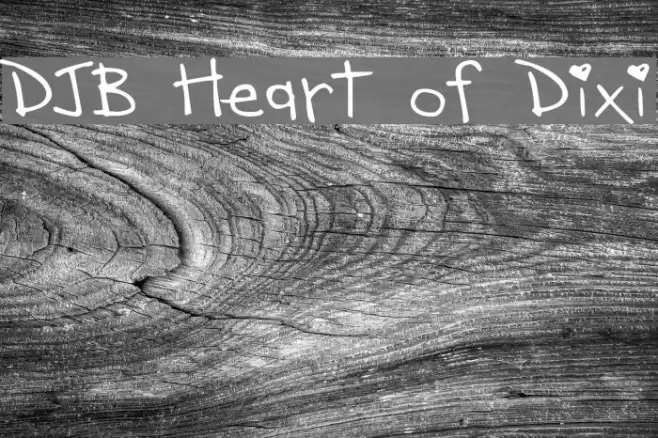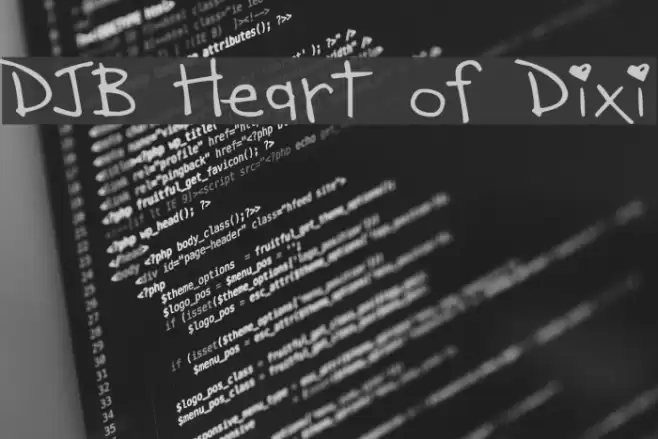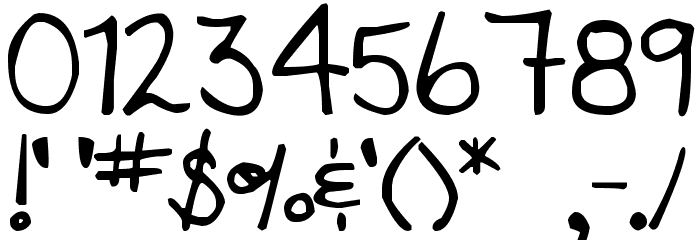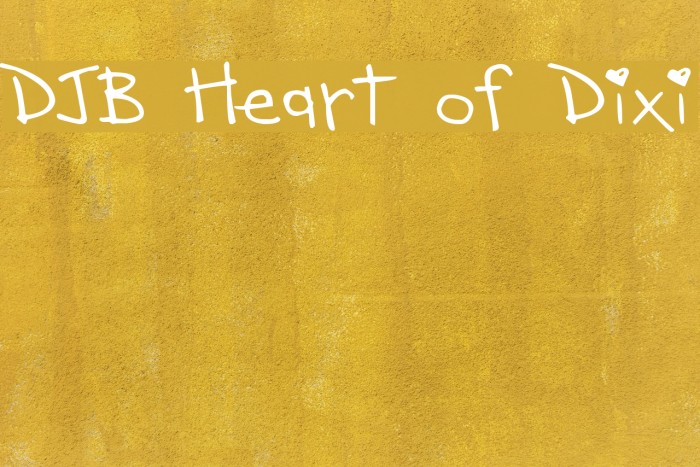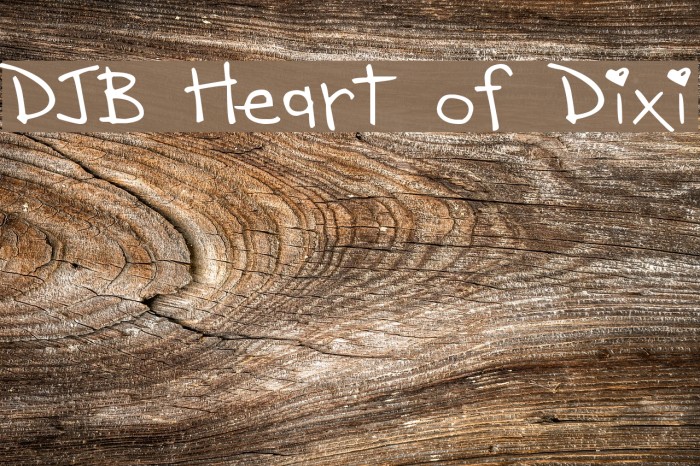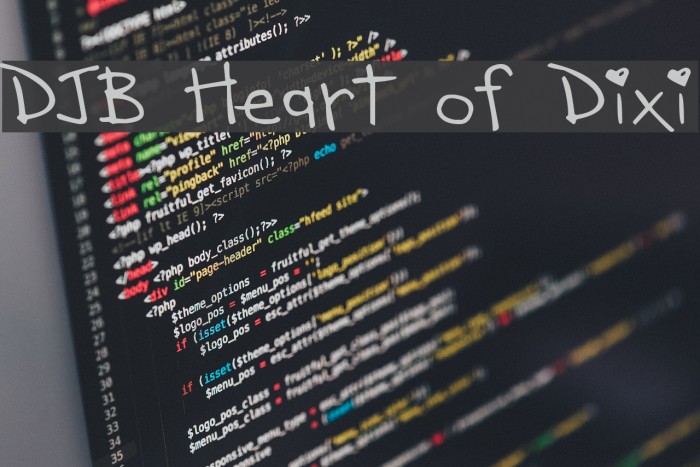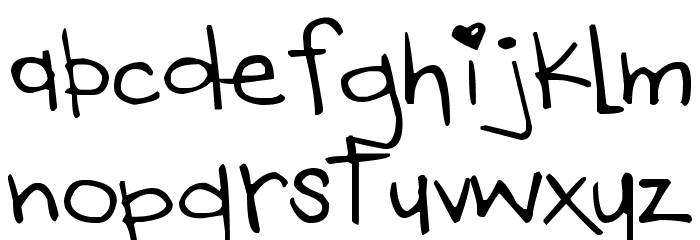
DJB Heart of Dixi Font
This playful and whimsical font features a handwritten style that exudes a casual and friendly vibe. The letters are slightly irregular, adding a personal touch that mimics natural handwriting. Notably, the lowercase 'i' is adorned with a heart-shaped dot, enhancing its charm. The strokes are consistent in thickness, providing a uniform appearance across all characters. The numerals and special characters maintain the same playful aesthetic, making it suitable for creative and informal projects. Its overall style is approachable and fun, perfect for designs that aim to convey warmth and personality.
A playful, handwritten font with a casual and friendly vibe from Handwritten fonts.
- Proposed Projects: Ideal for greeting cards, children's books, playful branding, and personal projects.
- Use Case: Headlines, Logos, Informal Text